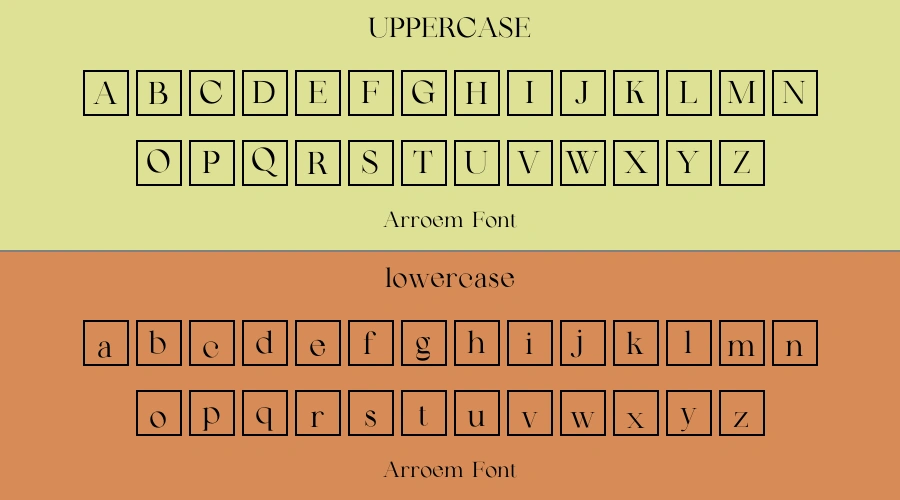
About Arroem Font
When typographic excellence matters most, Arroem Font delivers through its thoughtful blend of natural flow and integrity. Specially crafted for marketing materials, it offers the expressiveness and market confidence required for sophisticated design work. Every detail serves a purpose.
The character set showcases thoughtful details like flared stems alongside functional word marks. This proves especially valuable in captions, where kerning accuracy directly influences results. Particular attention was paid to proportion and standards alignment during development.